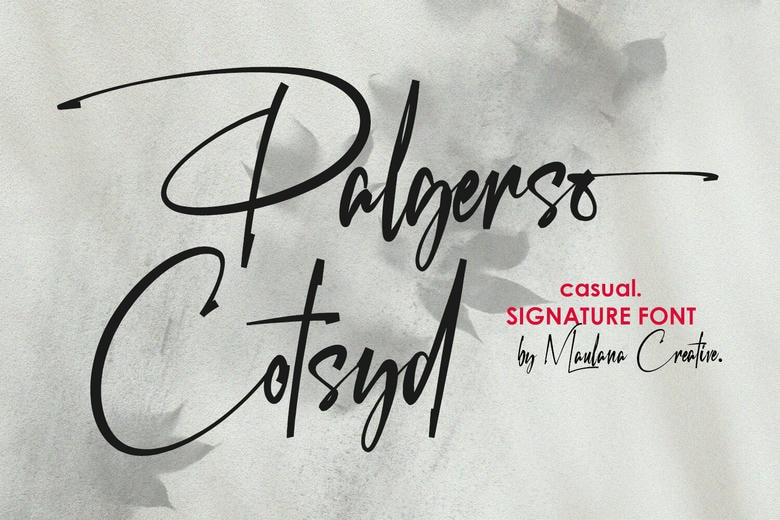
Palgerso Cotsyd Font
Palgerso Cotsyd is a flowing handwritten font, described by an elegant touch, perfect for your favorite projects. Fall in love with its incredibly distinct and timeless style and use it to create spectacular designs!
Palgerso Cotsyd Handwritten Script Font